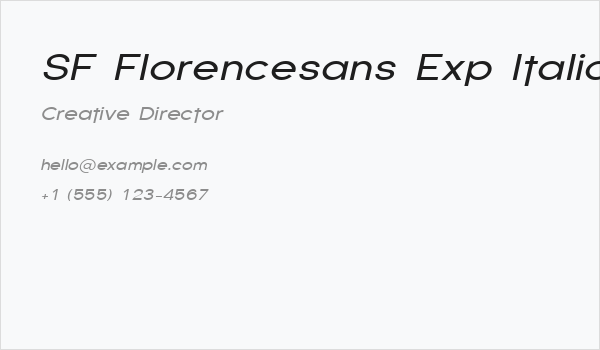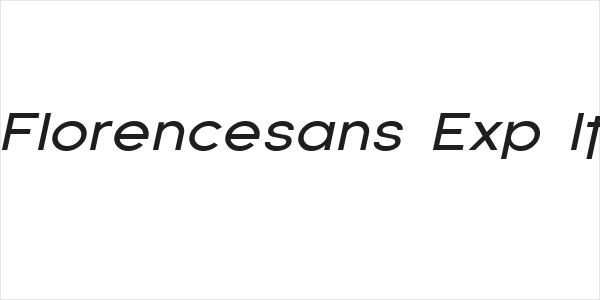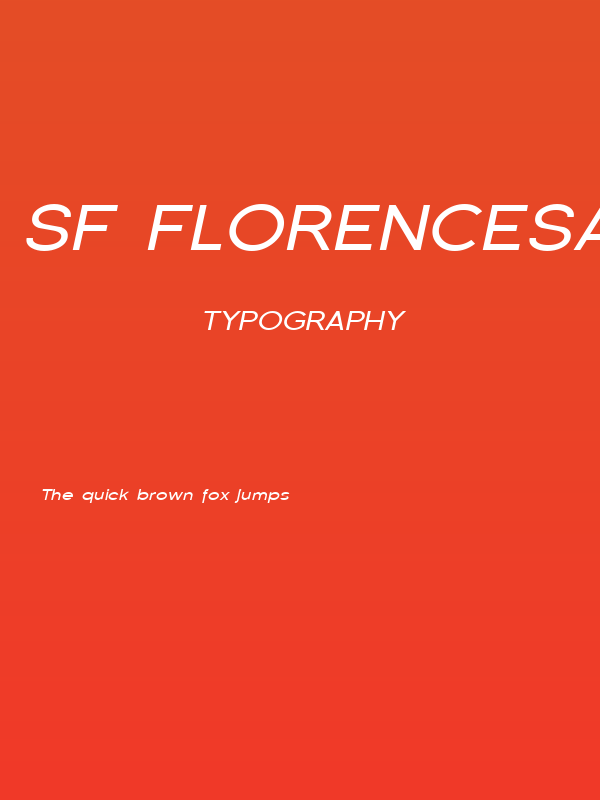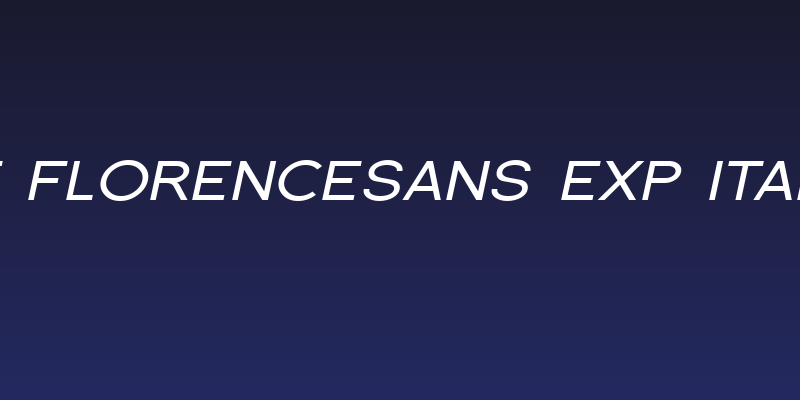
SF Florencesans Exp Italic Font
SF Florencesans Exp Italic Description
This font features a sleek, modern sans-serif design with an expanded width and italic style. The characters are slightly slanted, giving a sense of motion and elegance. The strokes are consistent in weight, contributing to a clean and uniform appearance. The spacing between characters is normal, ensuring readability while maintaining a stylish look. This font is versatile, suitable for various design needs where a contemporary and professional aesthetic is desired.
Use CaseHeadlines, Logos, Advertising
Proposed ProjectsIdeal for branding, advertising, and editorial design projects where a modern and dynamic look is required.